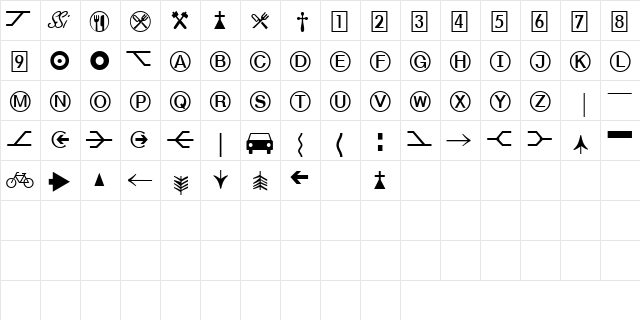
FormatPiTwoSSK Regular
Design Context for FormatPiTwoSSK Typeface
FormatPiTwoSSK offers clean, dependable letterforms without strong stylistic allegiance, making it a practical choice for designers who need flexibility.